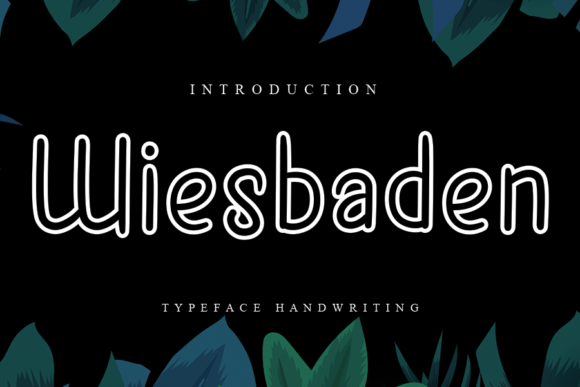
Wiesbaden Font is a beautiful and elegant script font that is perfect for adding a touch of vintage charm to your designs. Its flowing lines and delicate curves give it a timeless quality that will never go out of style.
Whether you're creating a wedding invitation, a social media post, or a logo, Wiesbaden Font will add a touch of sophistication and style. It's also perfect for creating wall displays, stationery, and more.
Here are just a few of the reasons why you'll love Wiesbaden Font:
* It's versatile and can be used for a wide variety of projects.
* It's easy to read and understand, making it perfect for body copy and headlines.
* It's stylish and sophisticated, adding a touch of class to any design.